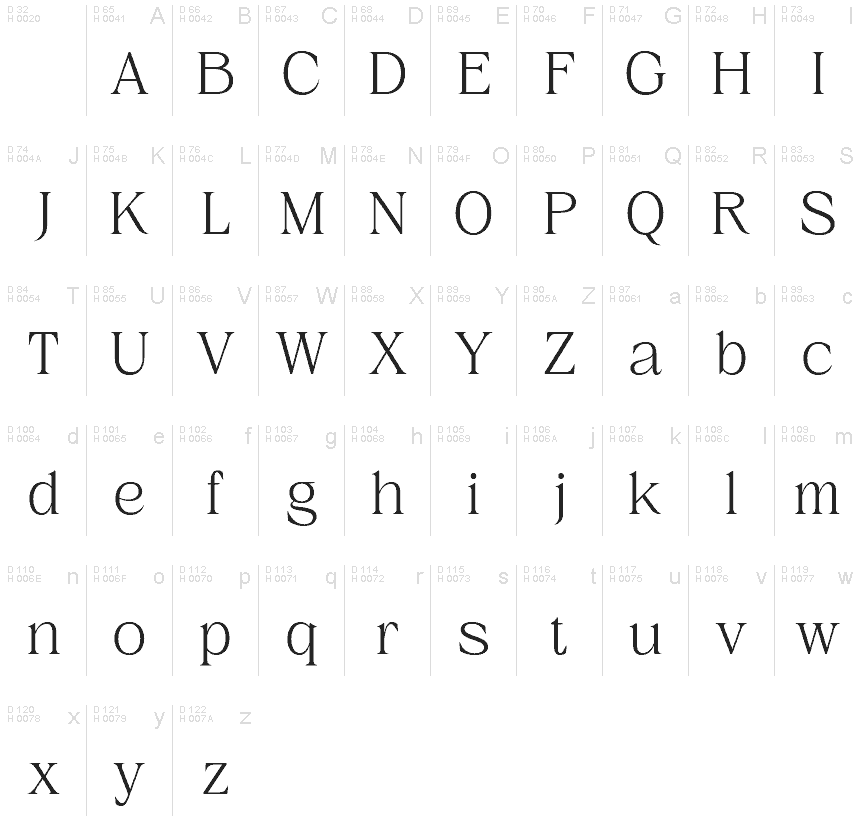
CS Castle Regular Demo
CS Castle font by Craft Supply Co. is an elegant font with distinctive serifs, letter shapes, proportions, and patterns. It reflects classic aesthetics with traditional influences for a refined and sophisticated outcome that adds charm to any project concerned. With its unique design, this free serif font can become the next featured item in your collections.
Websites are a staple of every modern business, so clients will be delighted to find its typography inviting and stylish thanks to CS Castle which can also be used for magazines, printed ads, brochures, luxurious branding designs such as hotels or restaurants logos, invitations (wedding), etc.